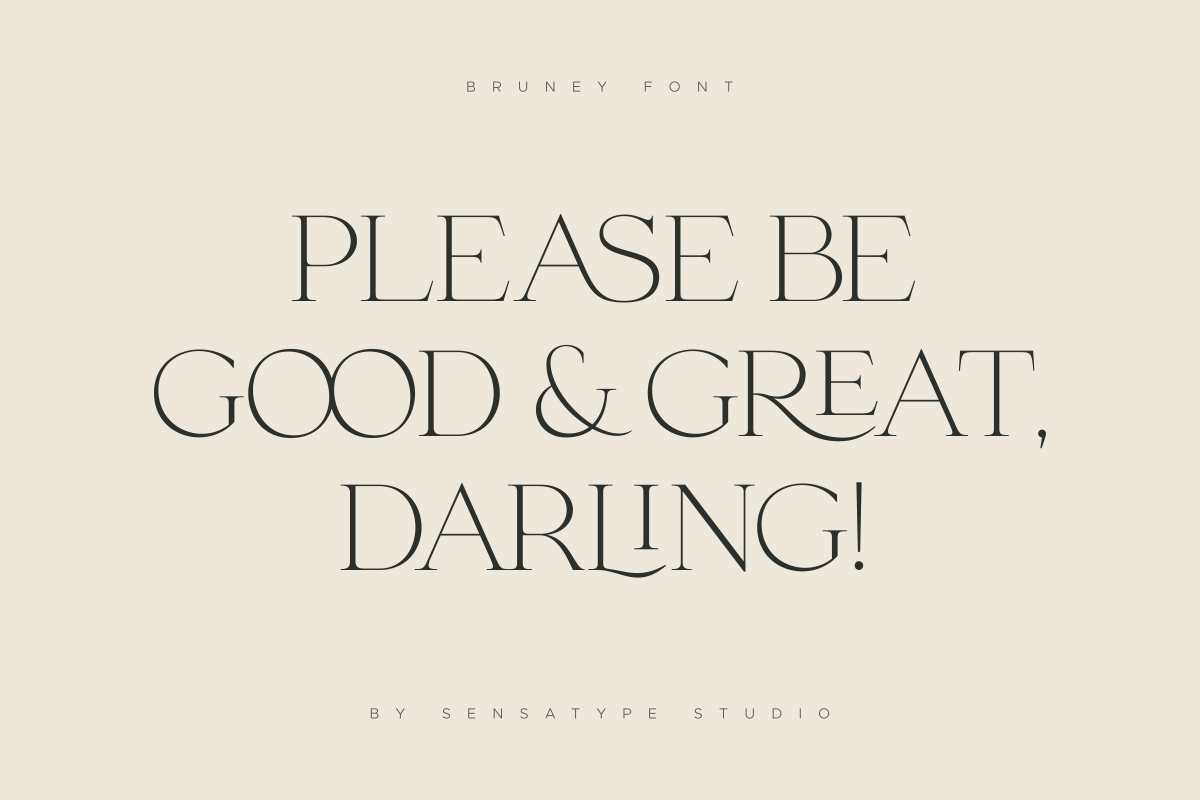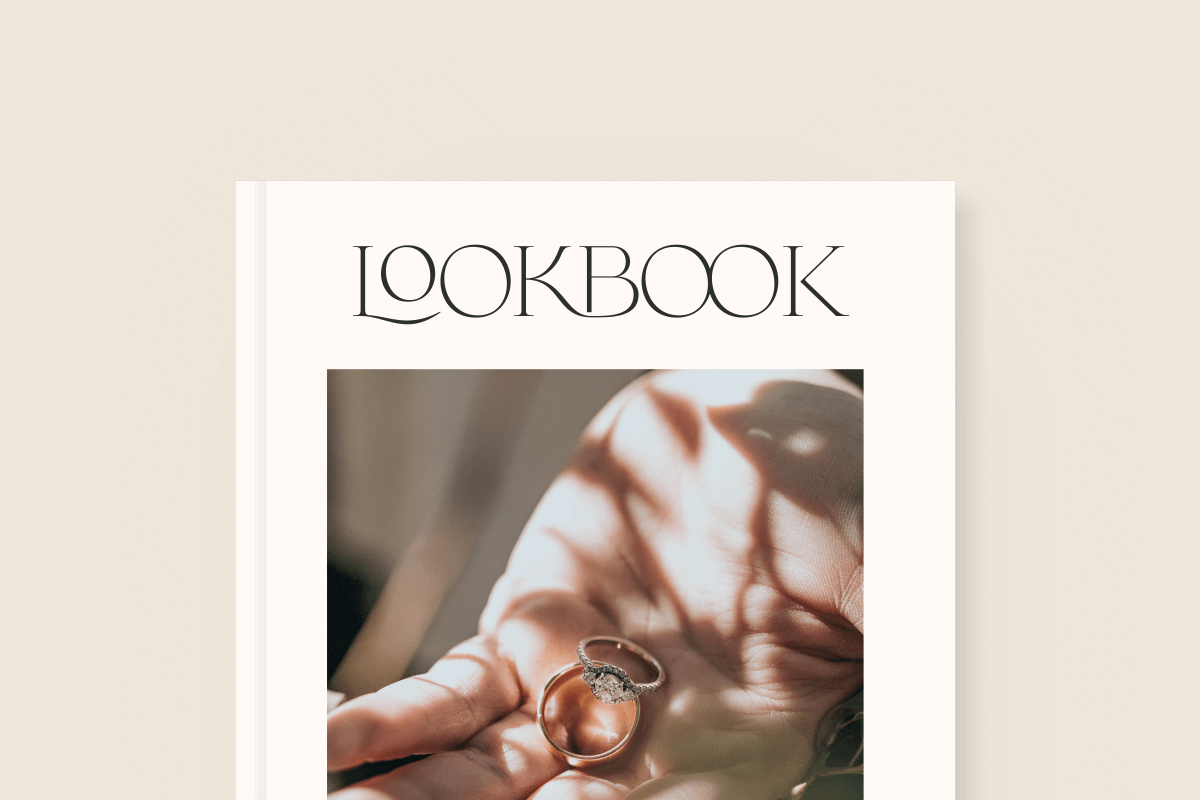
Bruney Font
Bruney is a Classy and Unique font for brand and logo design. Based on our experience as a graphic designer who works for a lot of companies, we often are requested to design a logo in a unique style but with an elegant shape. So, we try to brainstorming and create this font to make the idea is going out. This is perfect for BRANDING and LOGO DESIGN. You will get classy, elegant, and certainly unique logos with this font.
Feature:
• uppercase letters
• multilingual symbols
• numerals
• punctuation